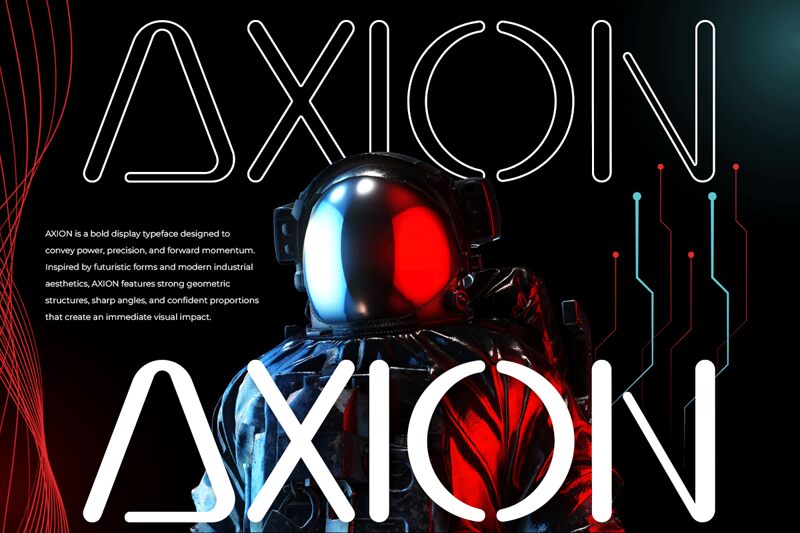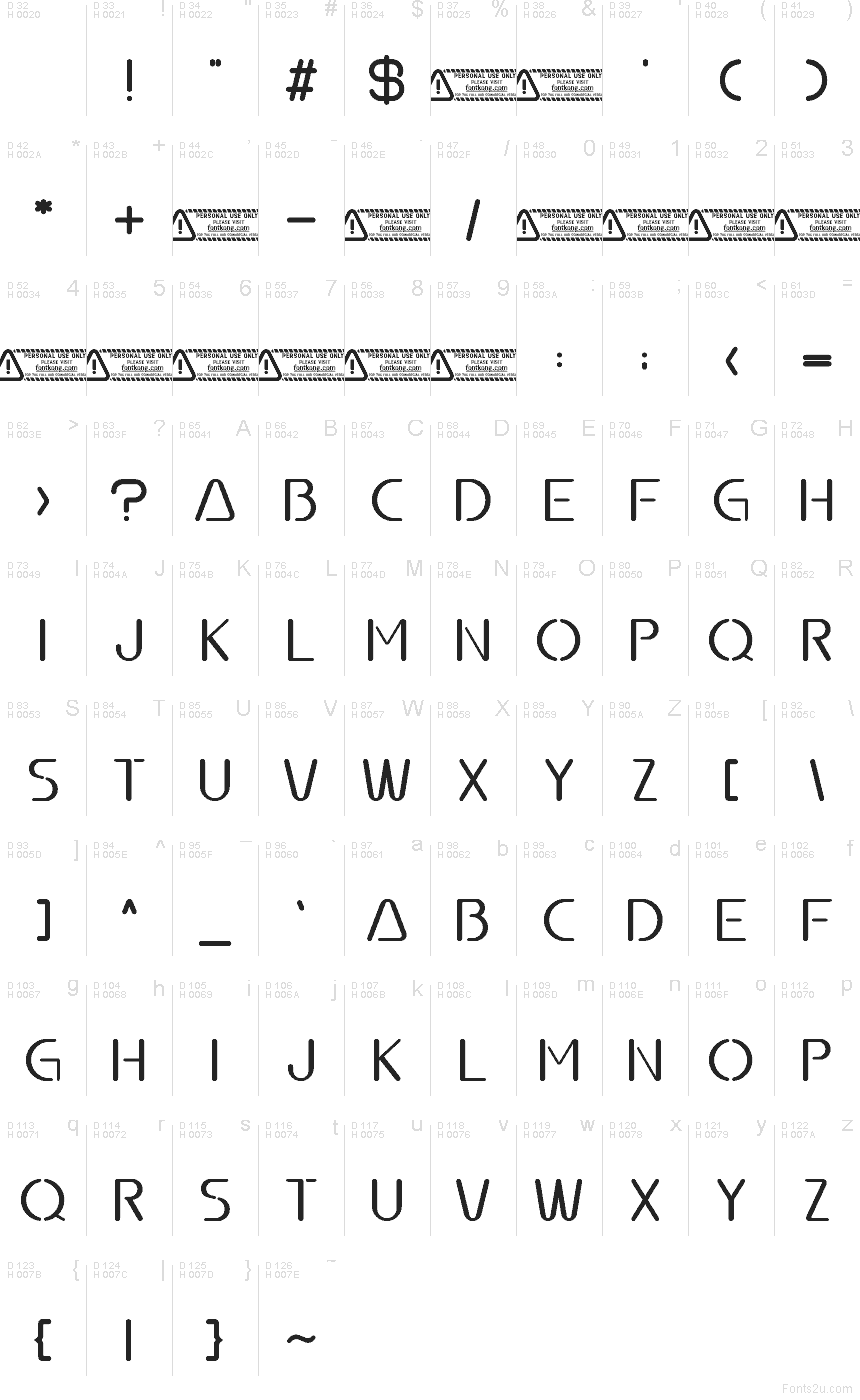
Axion font by Kong Font is a free futuristic font with sleek, monoline strokes and airy spacing that feels like brushed metal under cool neon light. Its rounded geometry and sharp cuts create a clean sci‑fi rhythm, while the tall caps keep everything crisp and organized even at larger sizes. The overall look is minimal but unmistakably tech-forward, with plenty of breathing room between shapes.
Using Axion on app headers, gaming UI, esports branding, sci‑fi posters, tech event flyers, album covers, product packaging, or motion graphics gives your type instant “future” without visual noise. This free font shines when you let it sit big and spacious—try slightly looser tracking and pair it with a plain neo-grotesk sans for body copy to keep layouts readable and fast.